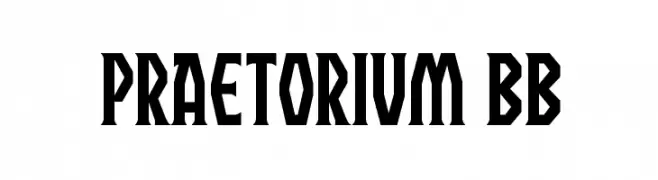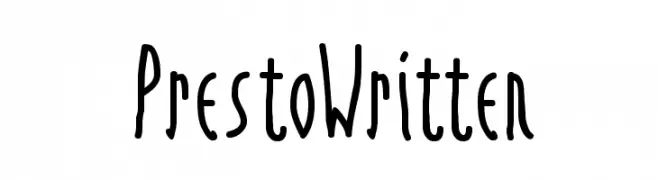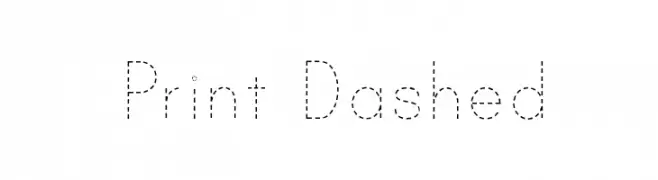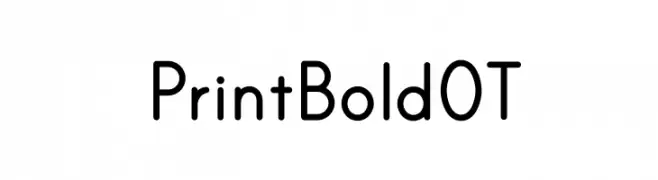
A hand-drawn, medieval-inspired font with sharp serifs and artistic flair.
A bold, geometric font with a futuristic and edgy style.
A bold blackletter font with sharp, angular lines and a gothic aesthetic.
A bold, angular font with a geometric and commanding style.
A playful, handwritten font with tall, narrow letters and uneven strokes.
A clean, minimalist font with thin, uniform strokes and geometric shapes.
A playful dashed line font with a modern, informal style.
A modern sans-serif font with rounded edges and balanced spacing.